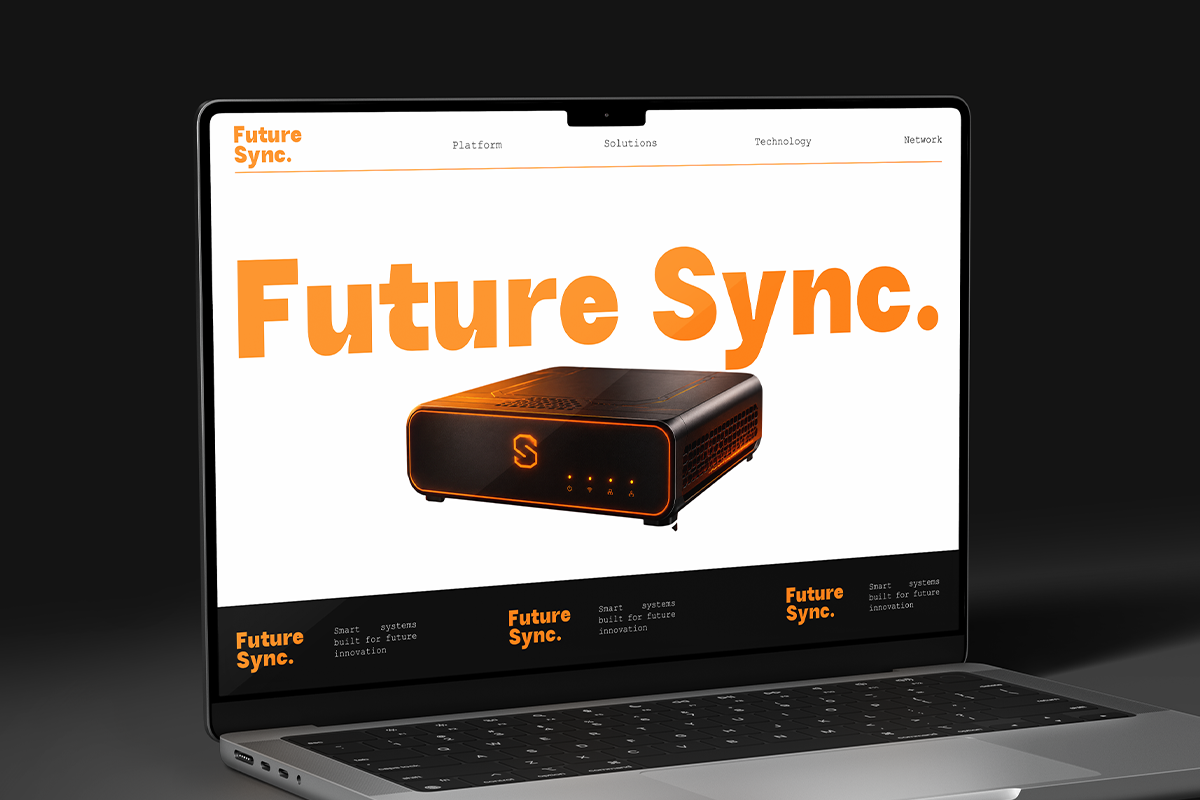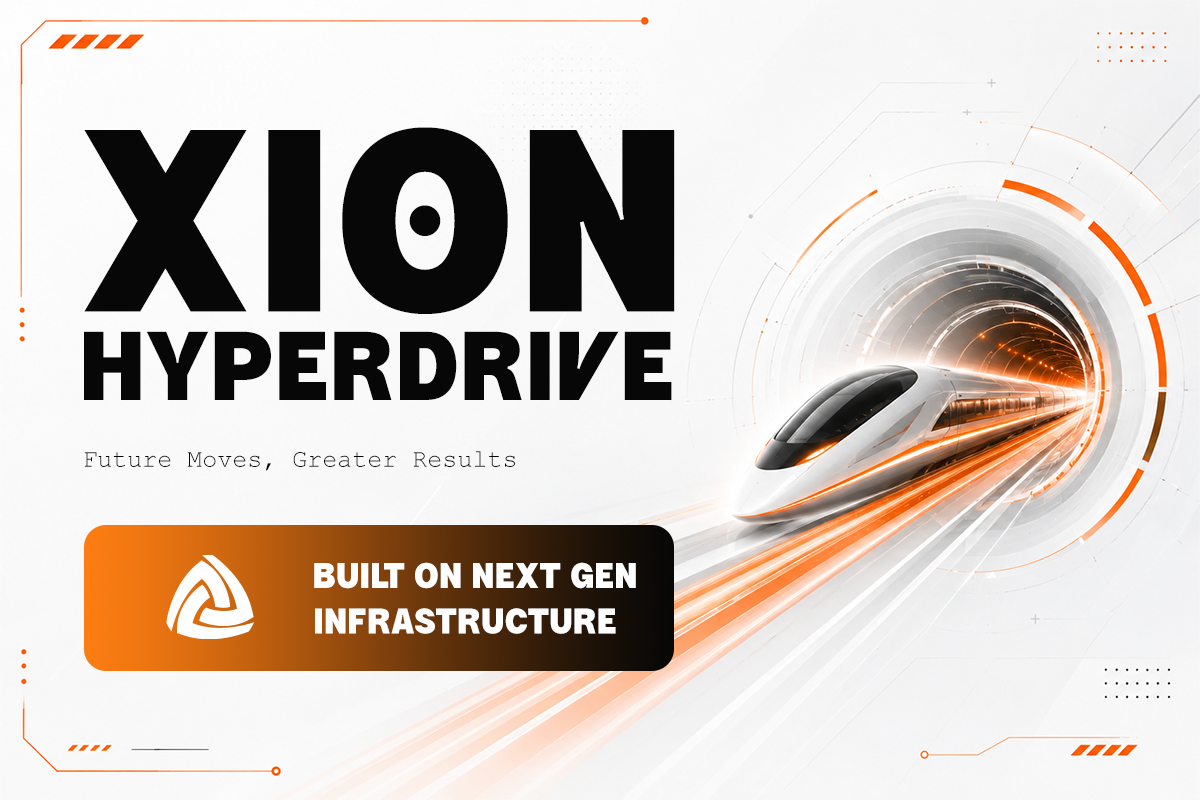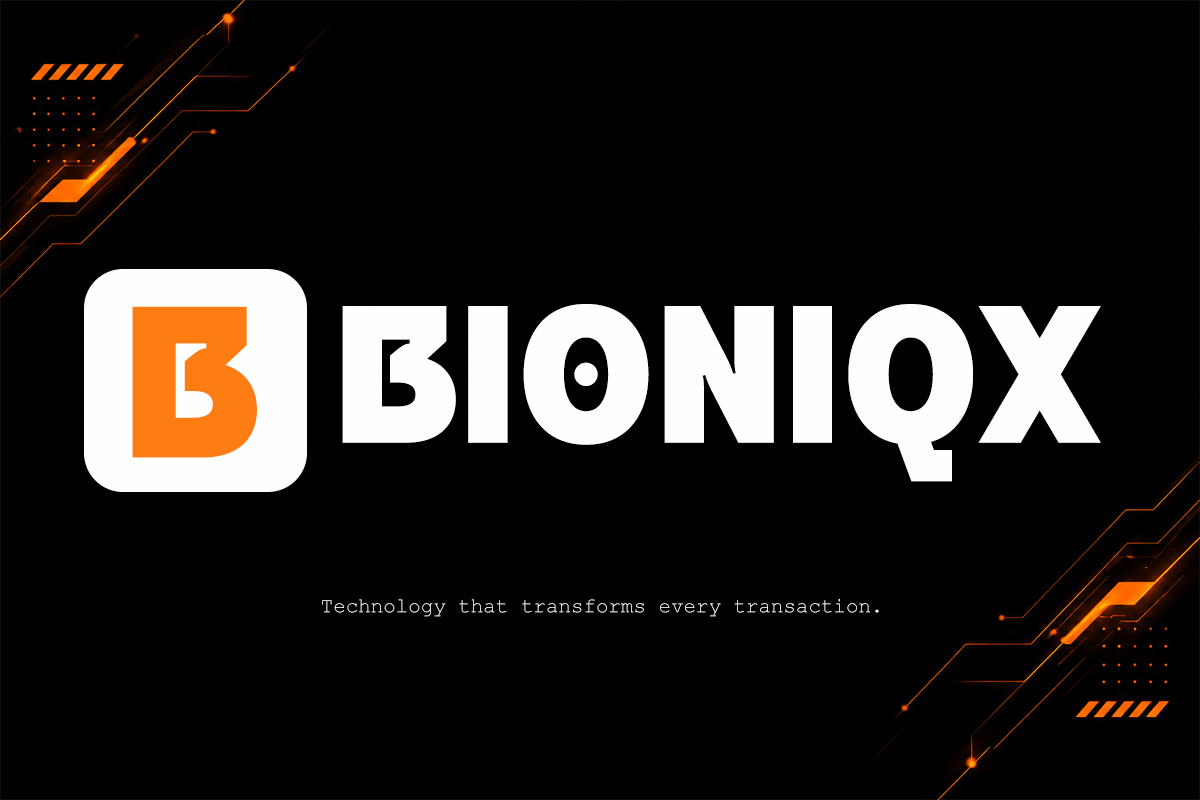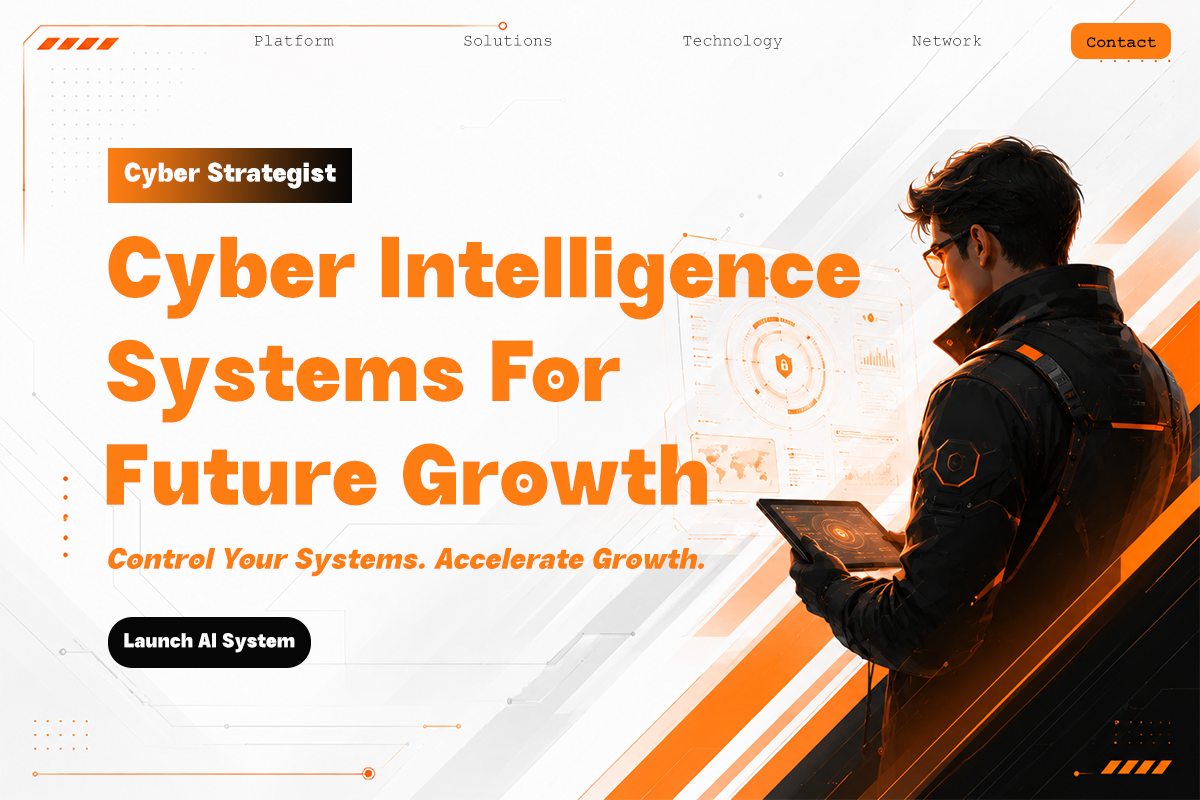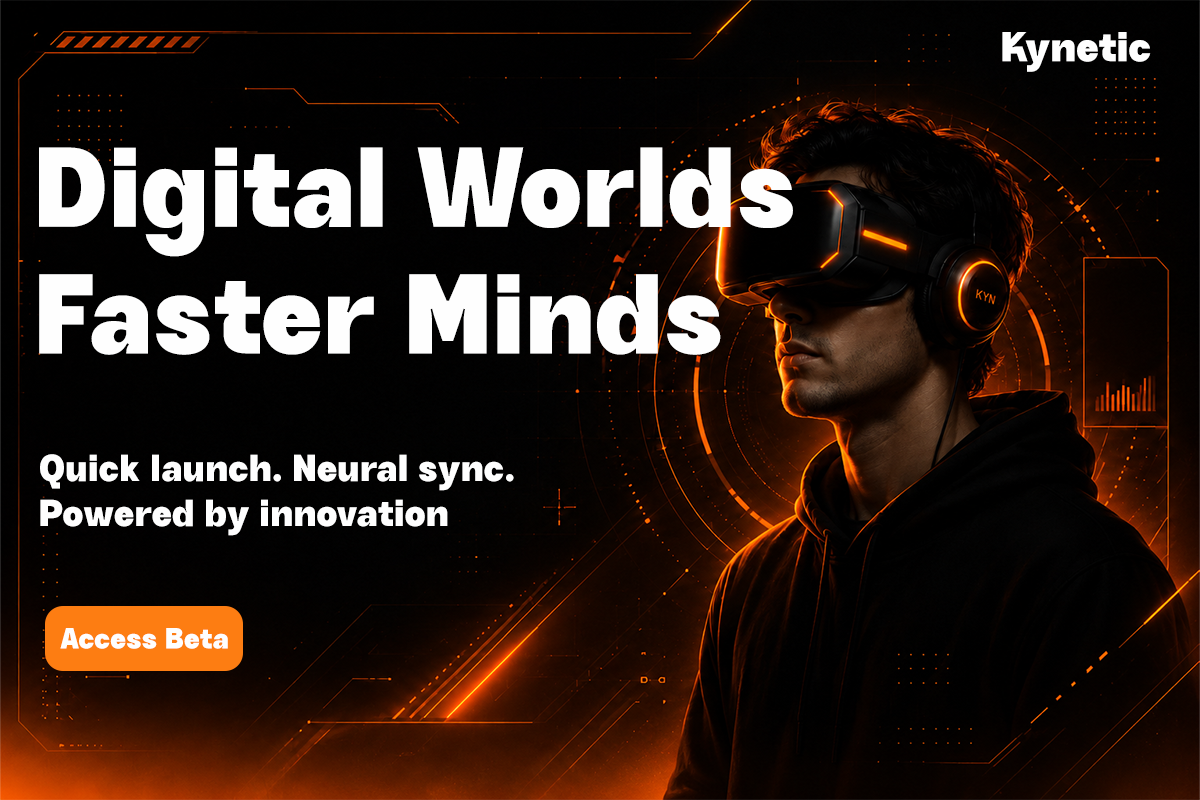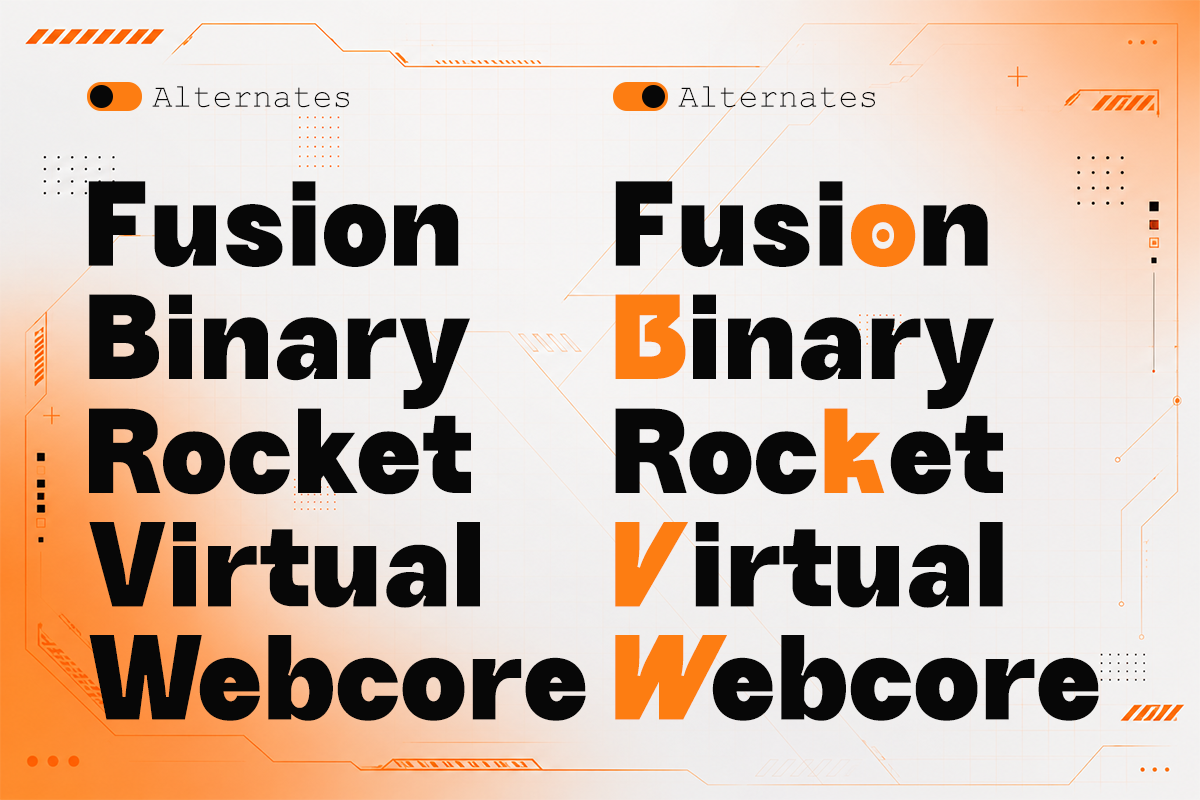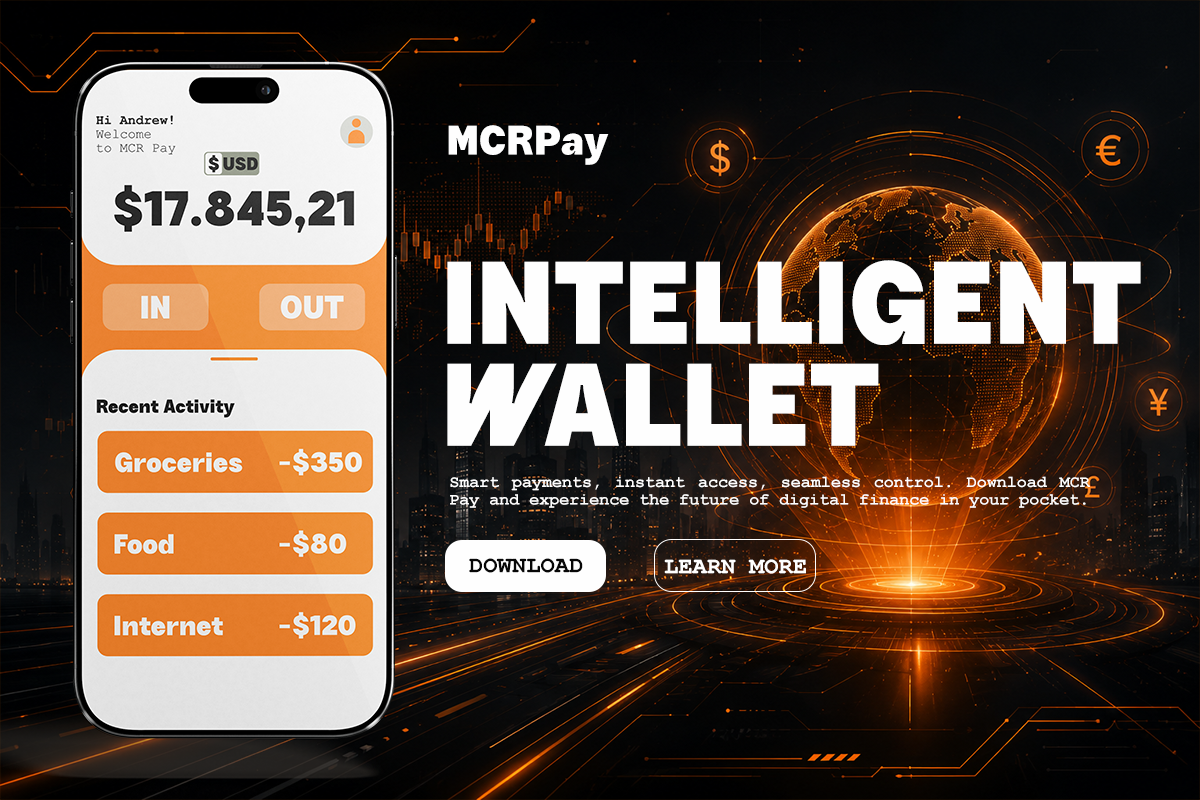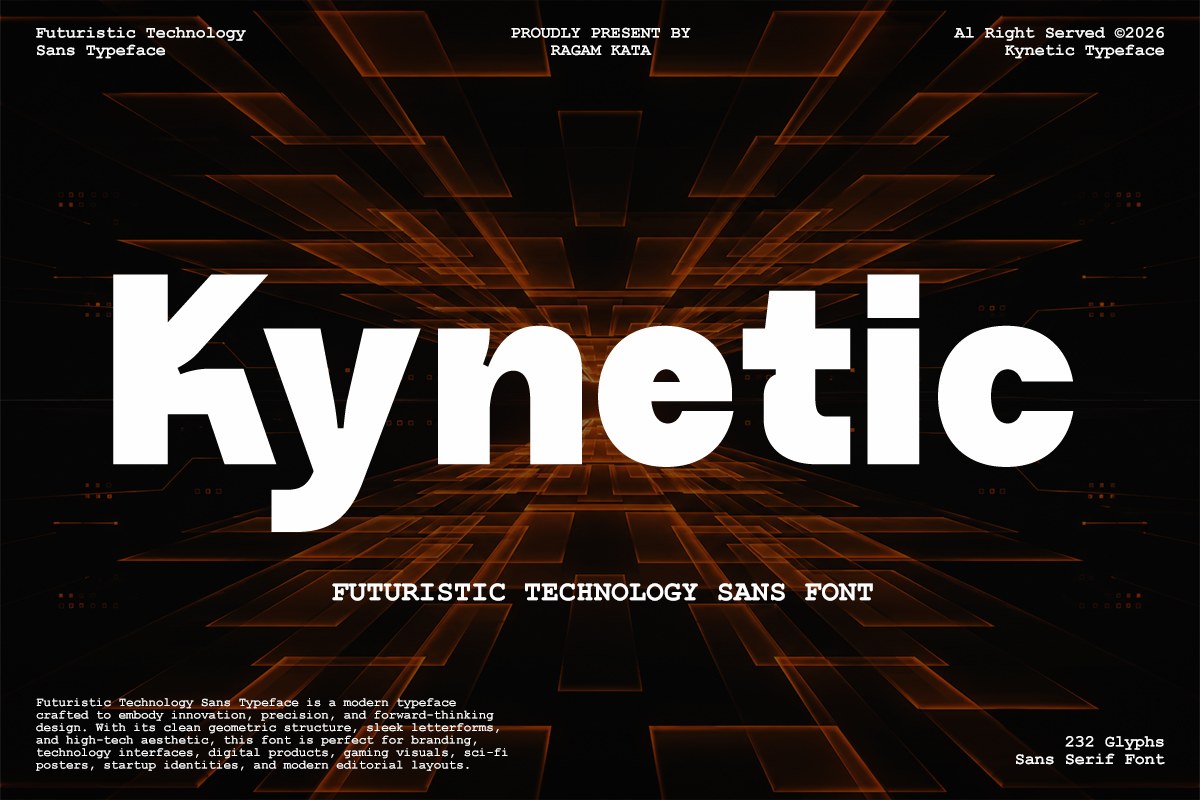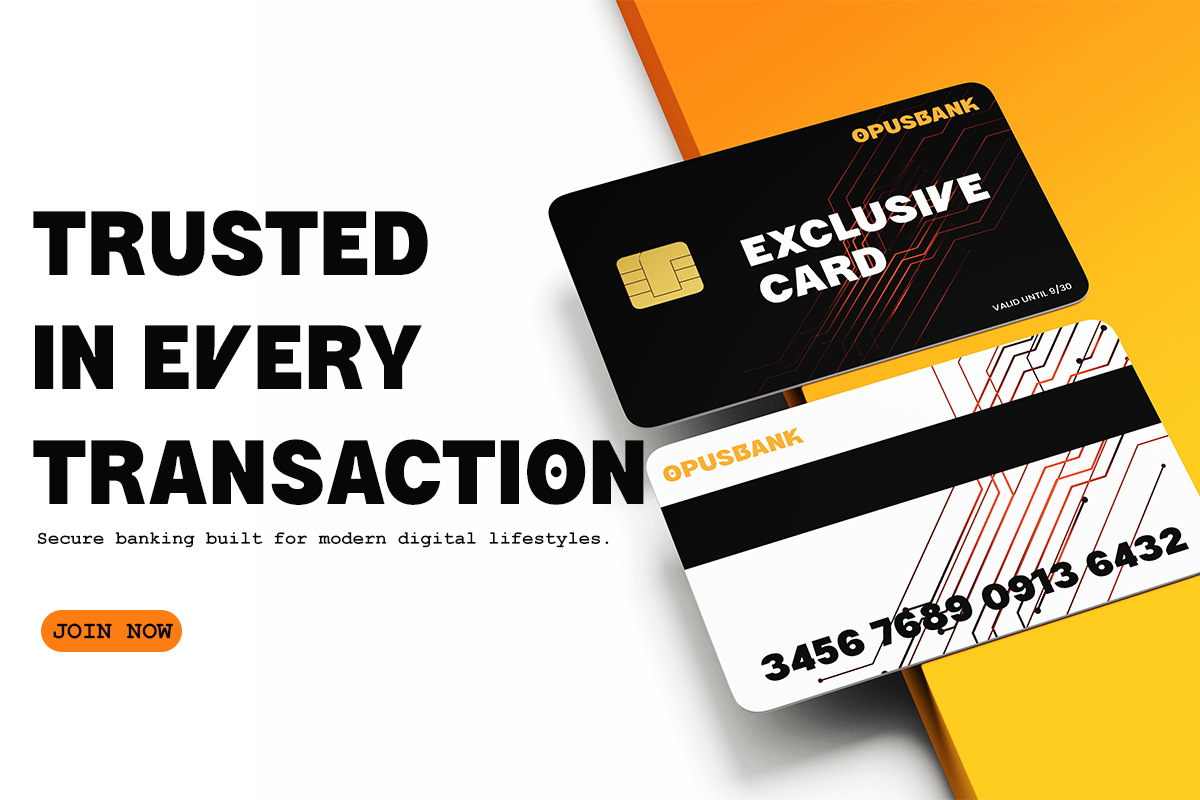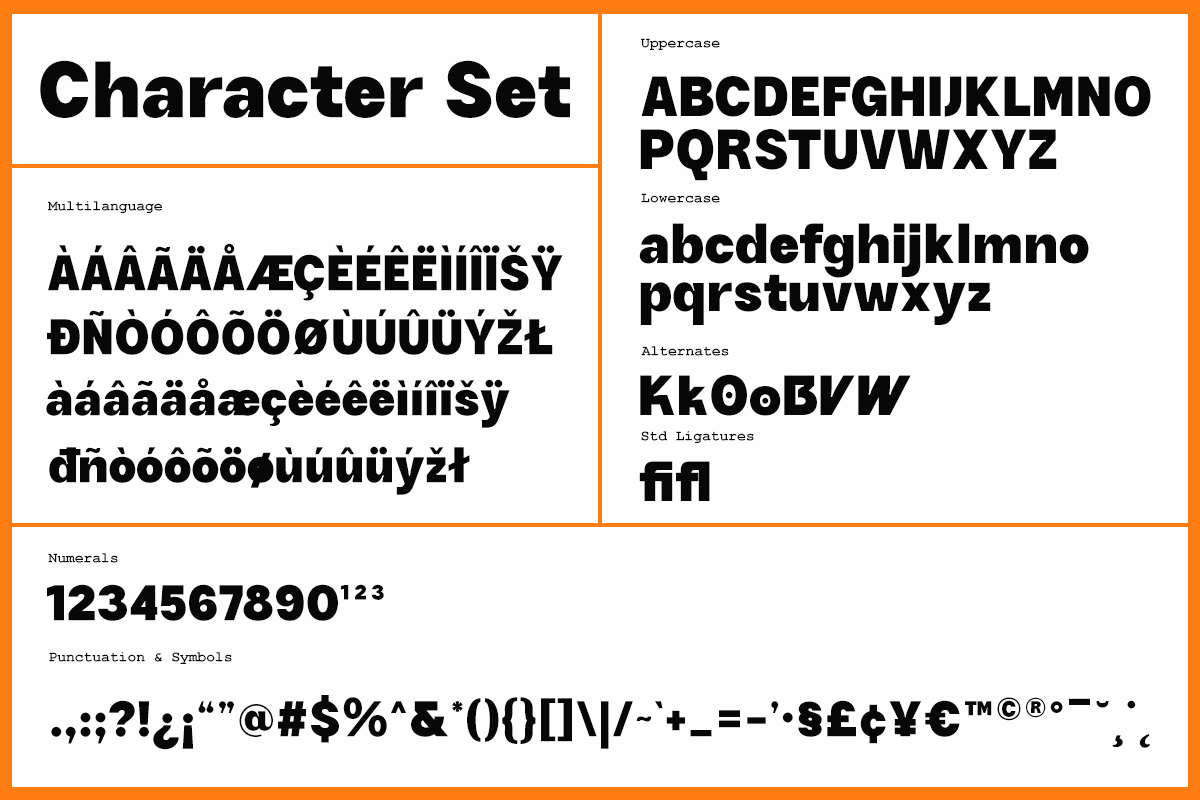
Kynetic - Futuristic Tech Sans Font
Kynetic is a bold futuristic technology sans typeface engineered for brands that demand a modern, innovative, and high-impact visual identity. With its strong geometric structure, clean edges, and commanding presence, Kynetic delivers a powerful balance between precision and readability. Inspired by advanced technology, digital innovation, and next-generation design trends, this typeface creates an unmistakably futuristic aesthetic suitable for modern creative projects.
Designed for versatility, Kynetic performs exceptionally well in technology branding, startup identities, gaming interfaces, esports graphics, sci-fi posters, digital products, mobile applications, UI/UX presentations, advertising campaigns, and contemporary editorial layouts. Its bold character shapes provide excellent visibility in both large headlines and impactful display settings, making it a reliable choice for designers seeking a sleek and professional futuristic look.
Whether you're building an AI startup brand, creating cyberpunk-inspired visuals, designing futuristic packaging, or developing innovative digital experiences, Kynetic offers the visual confidence needed to stand out in a competitive market. The font captures the essence of speed, intelligence, and technological advancement while maintaining a clean and highly functional design language.
Regular & Italic Style
Number, Symbol, & Punctuation